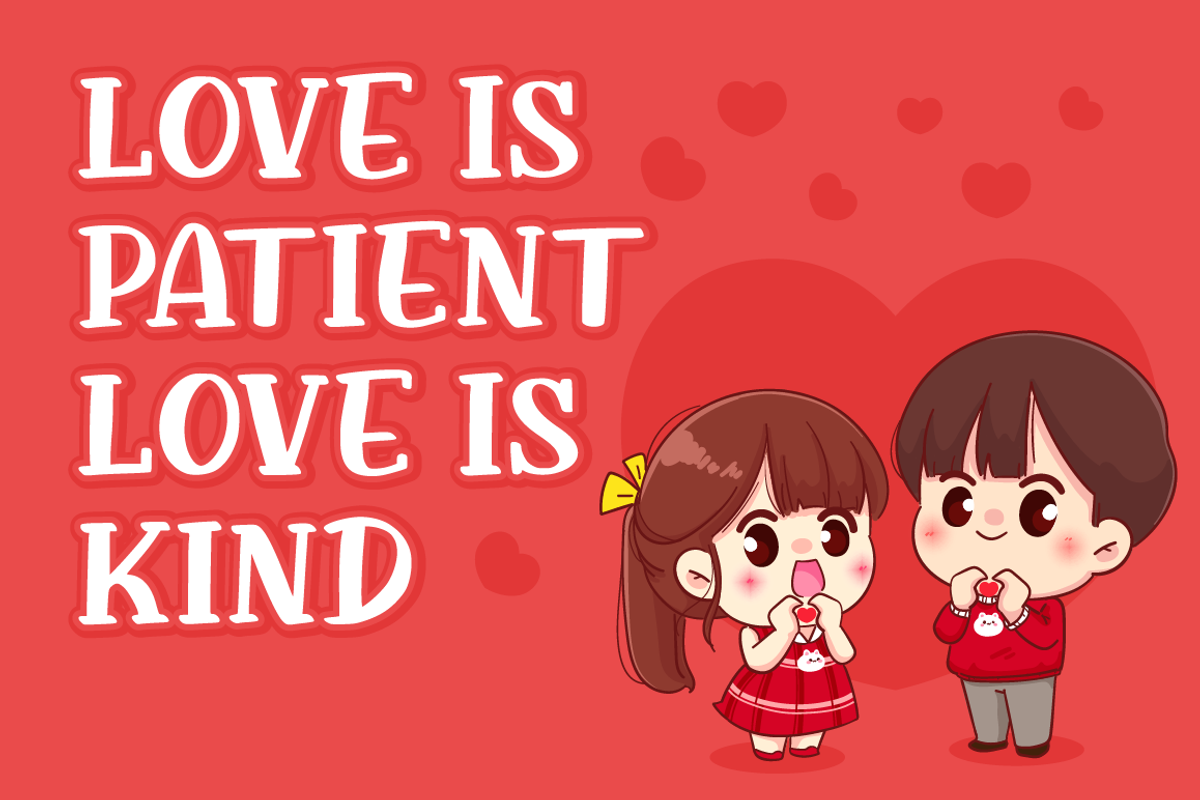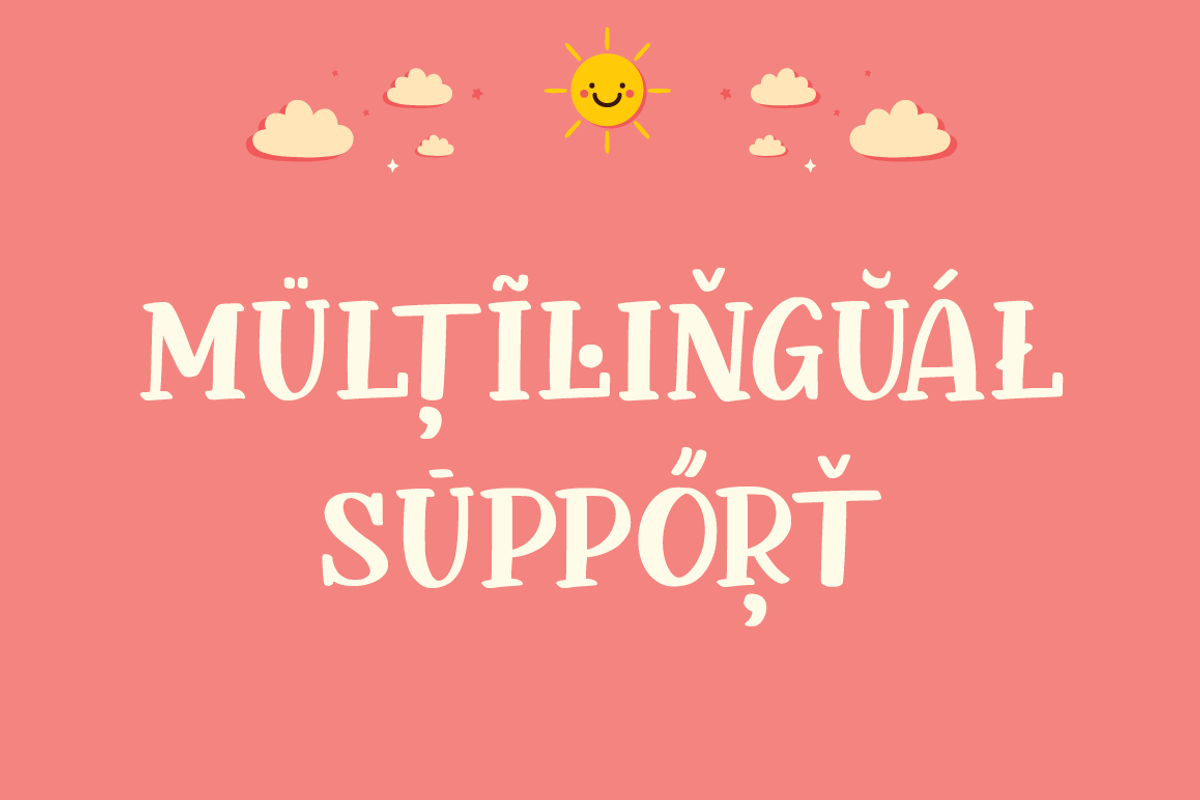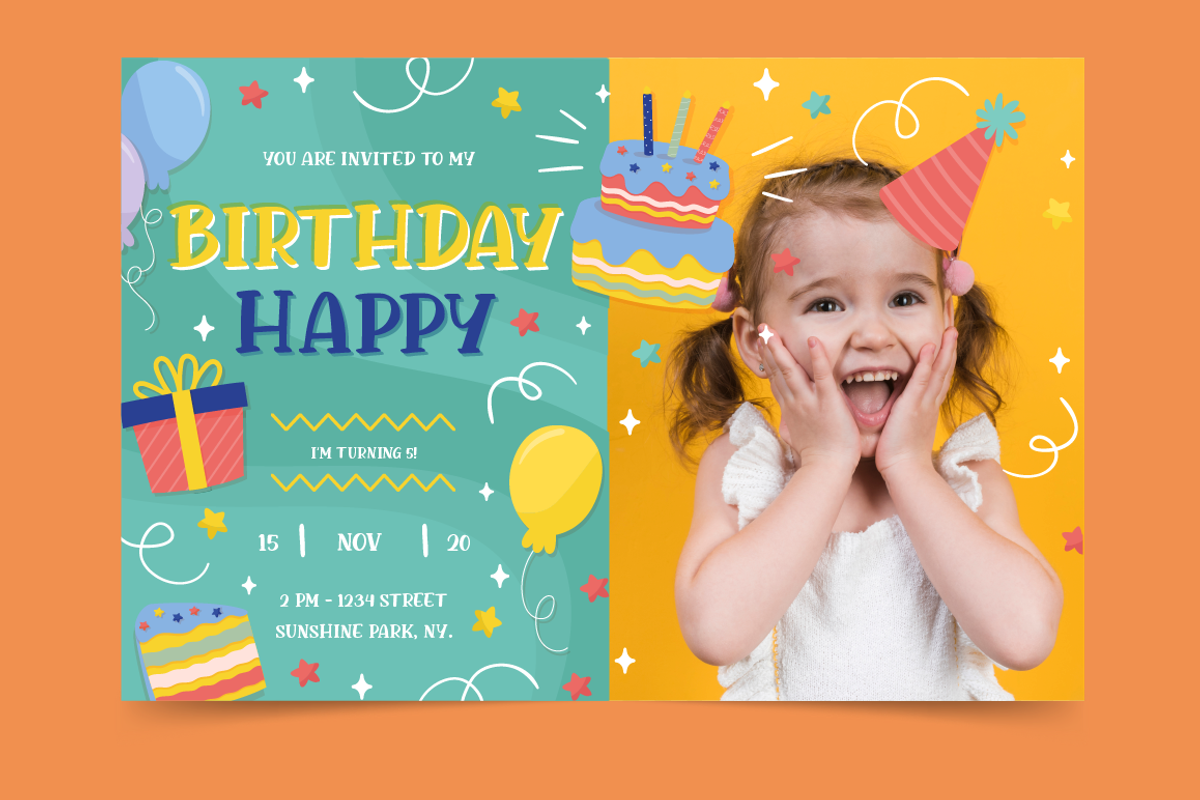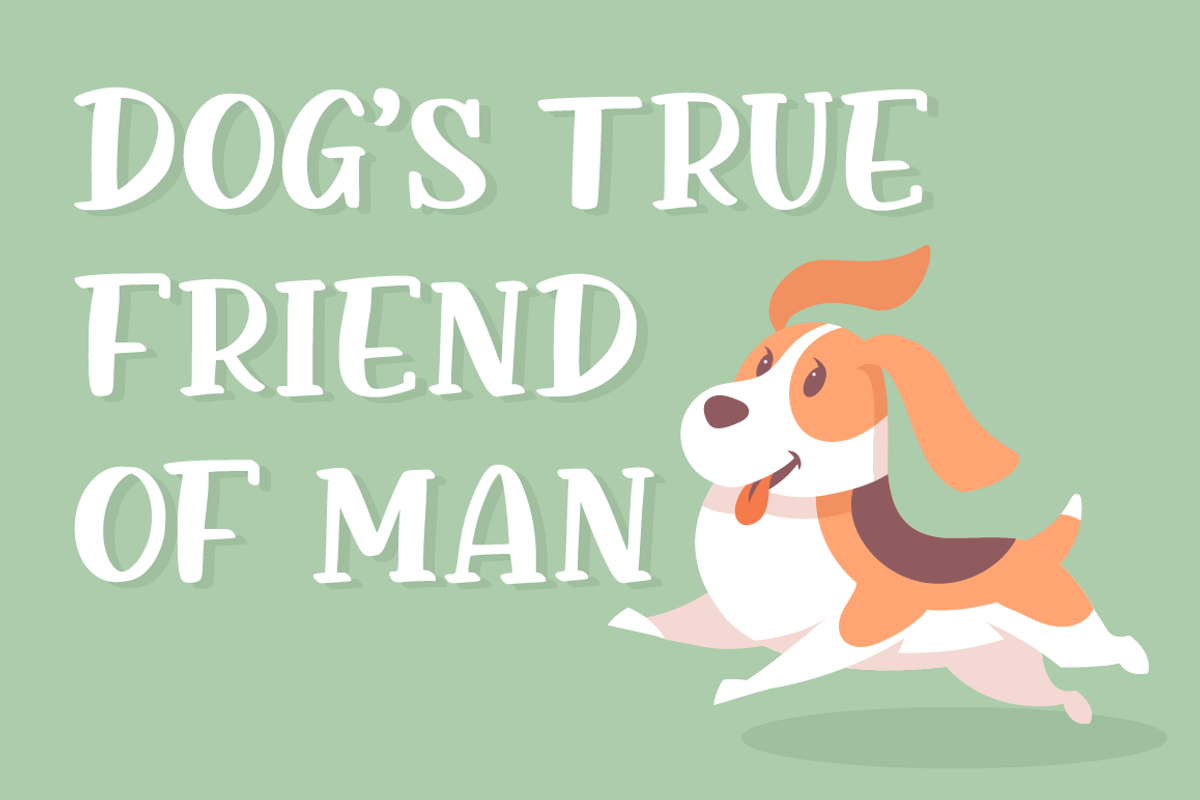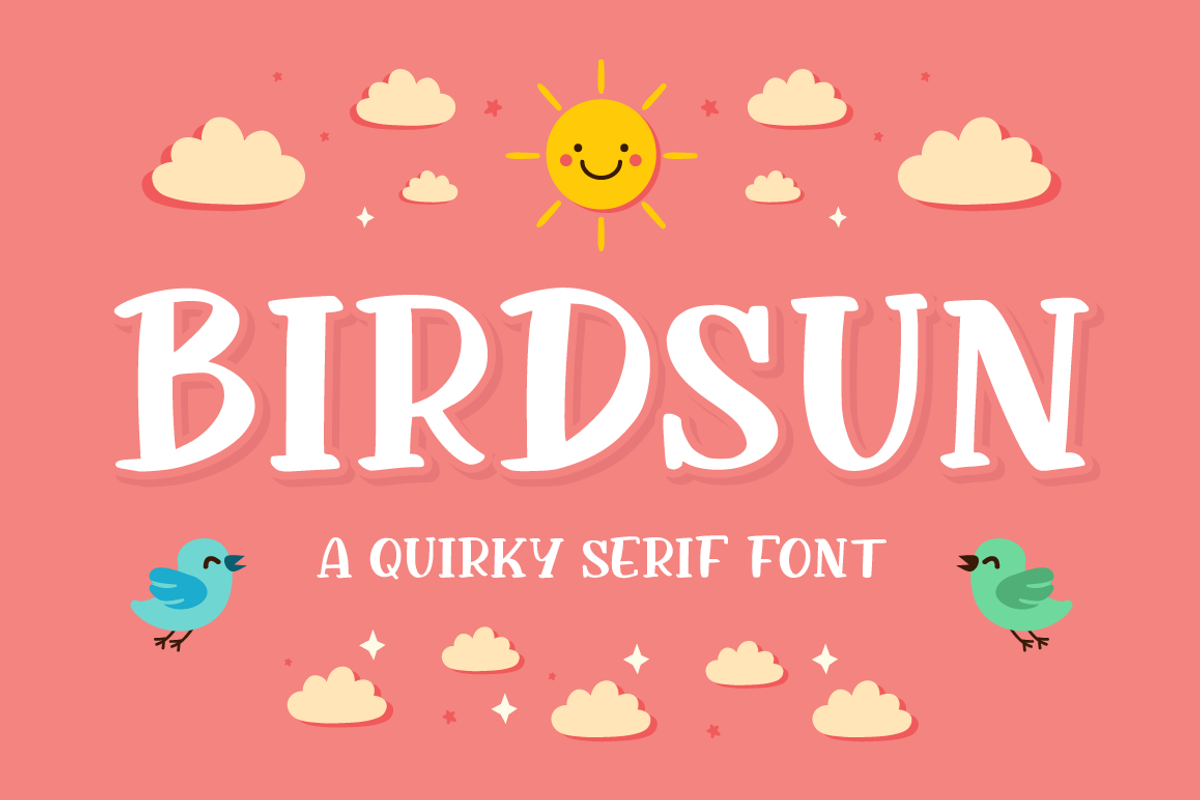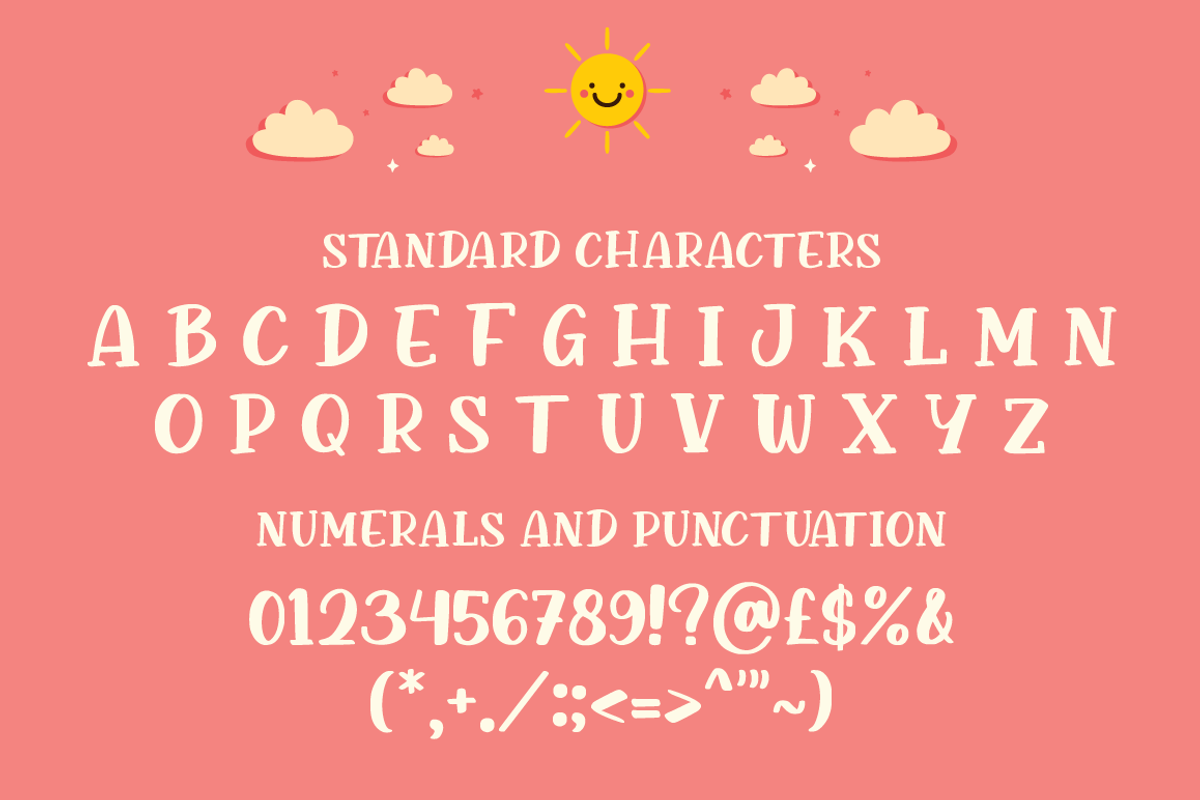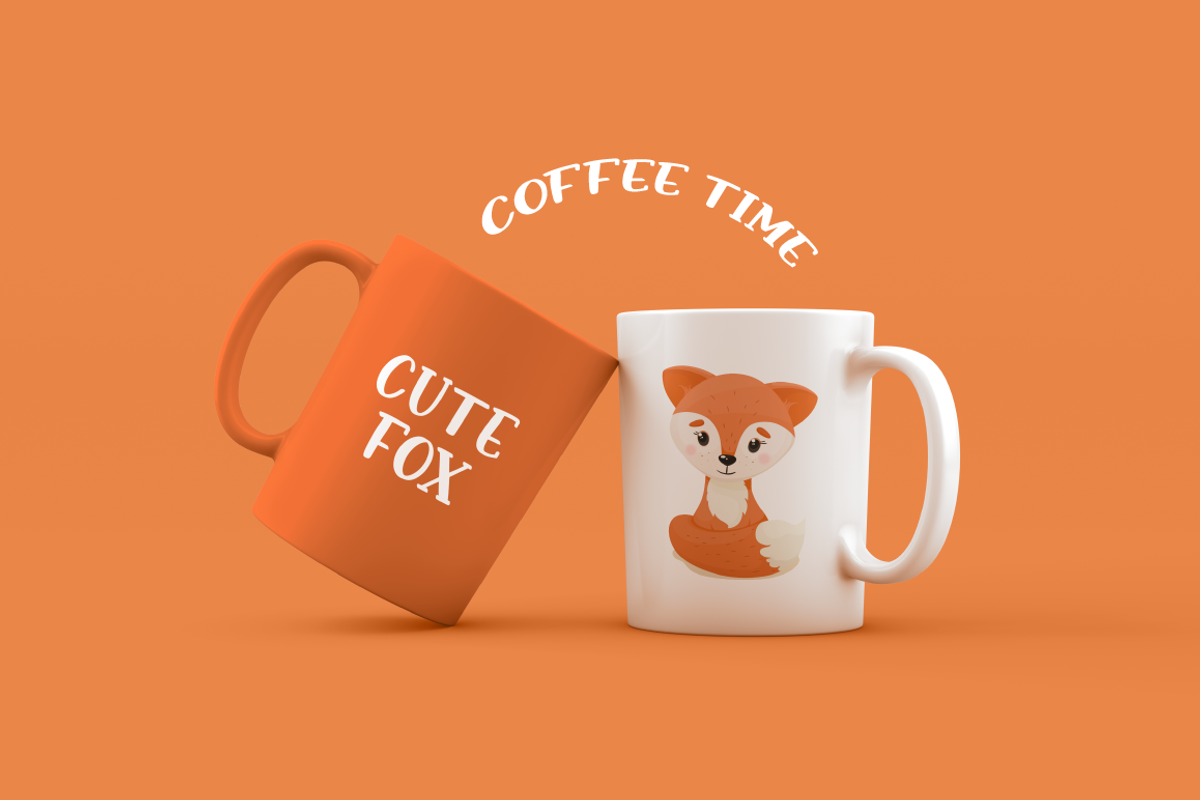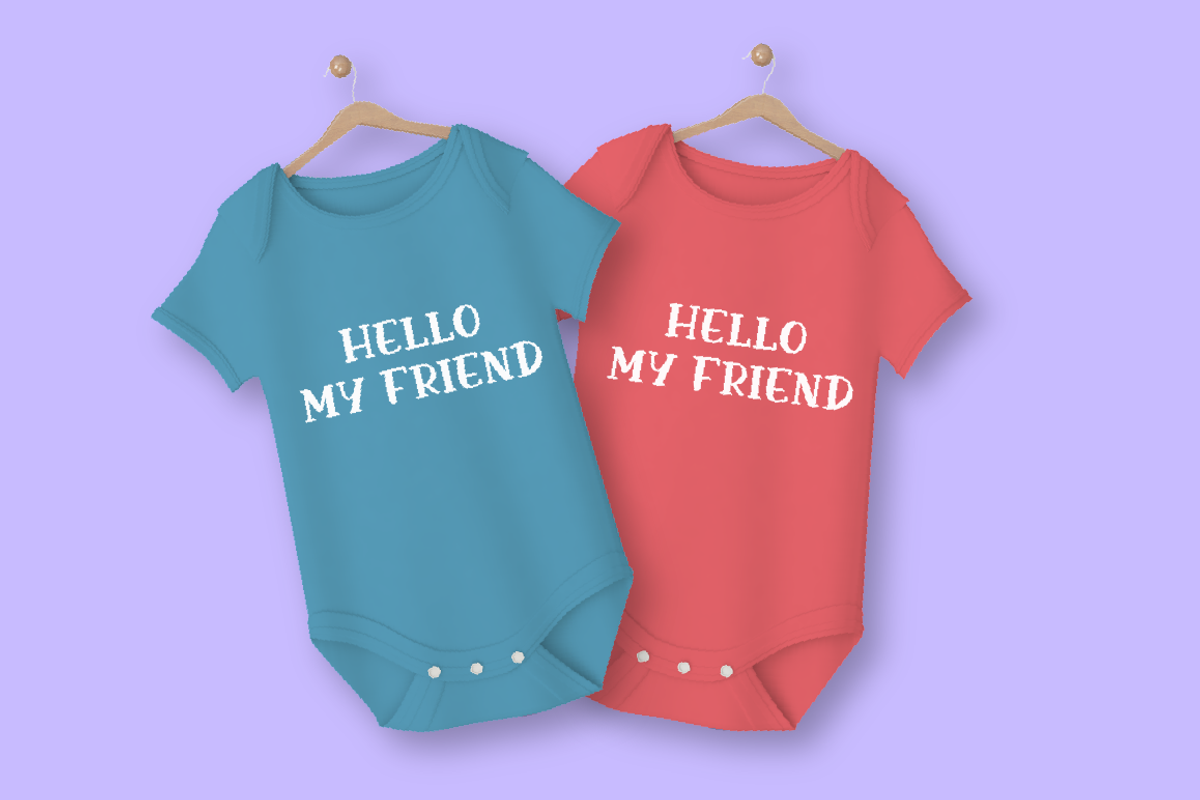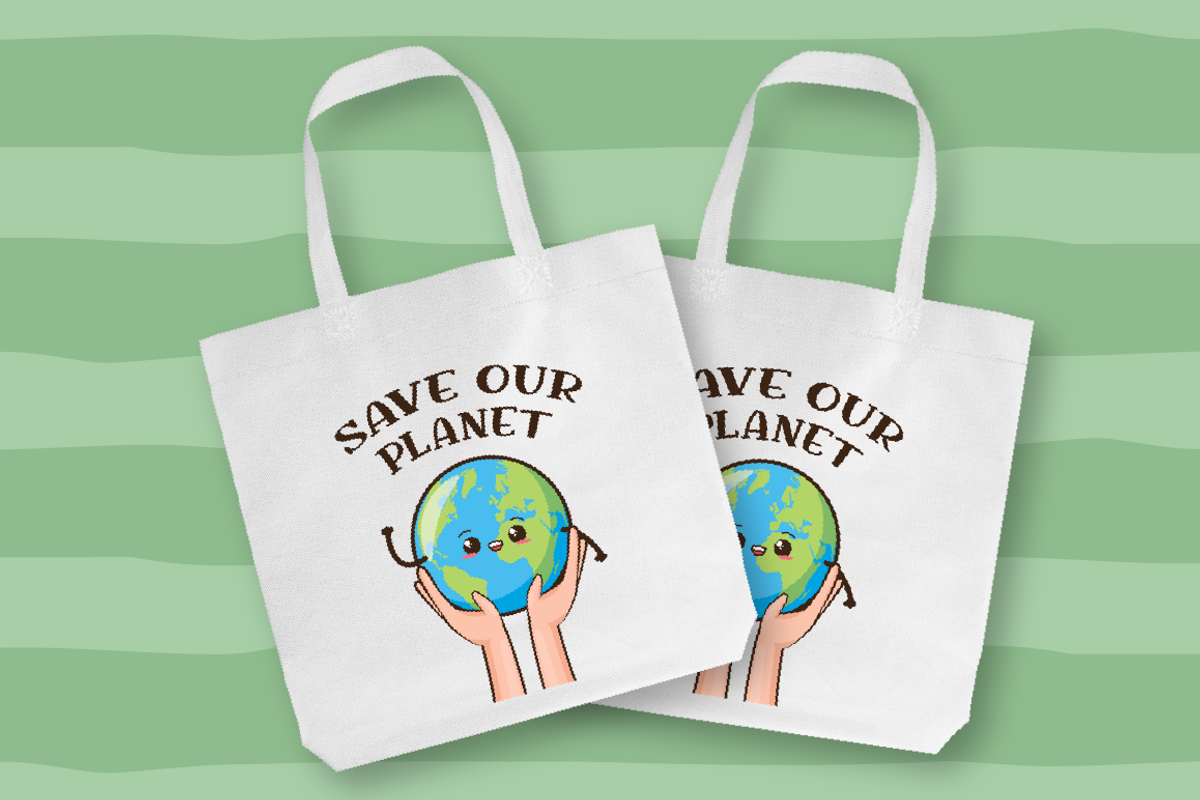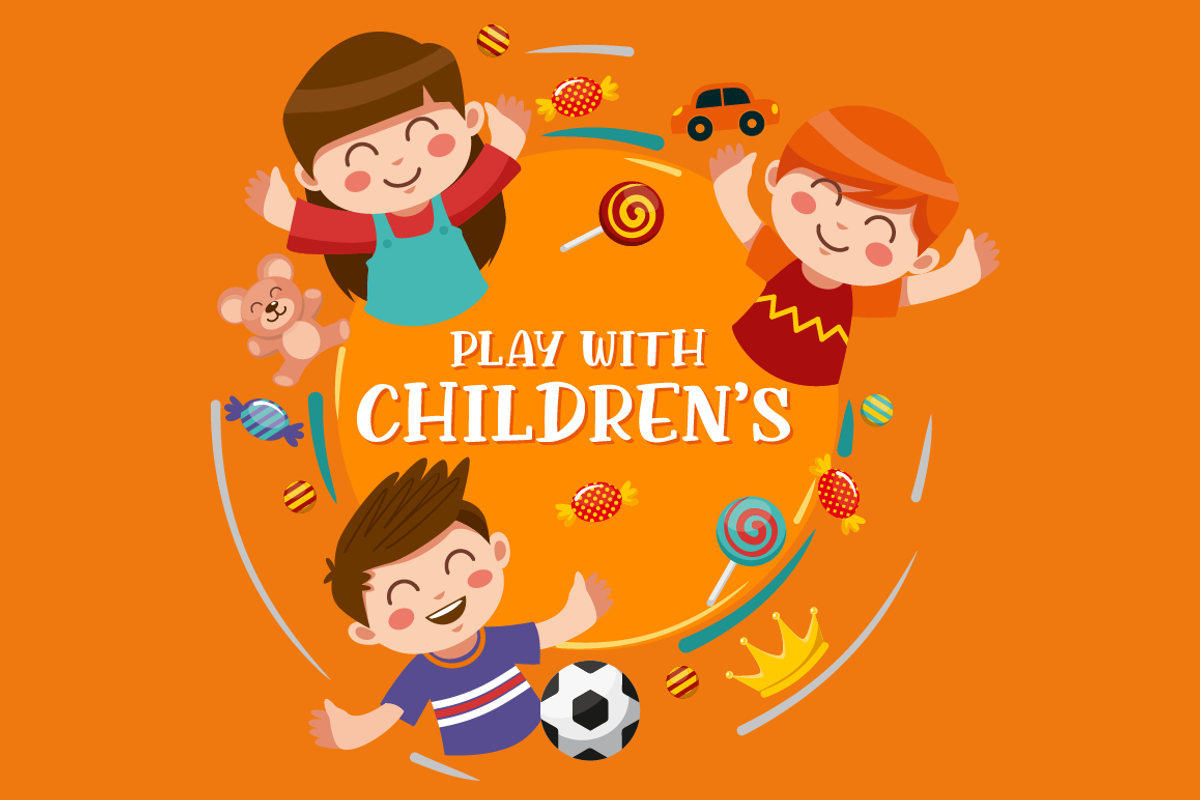
Birdsun a Quirky Serif Font
Birdsun is a cute and quirky display font. It will add an incredibly joyful touch to your designs. Add this beautiful font to each of your creative ideas and notice how it makes them stand out!